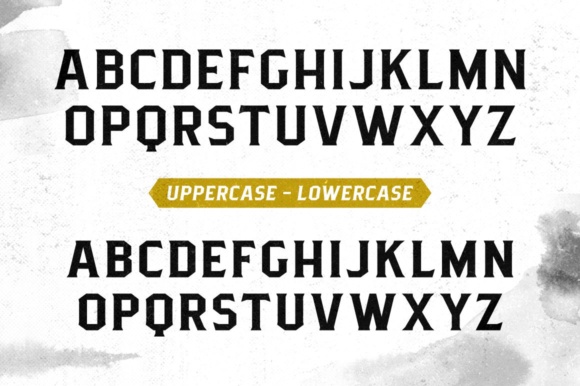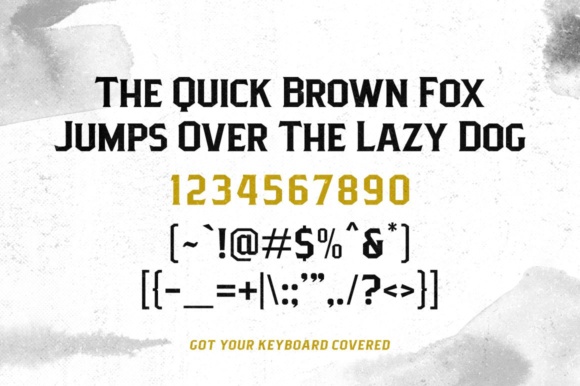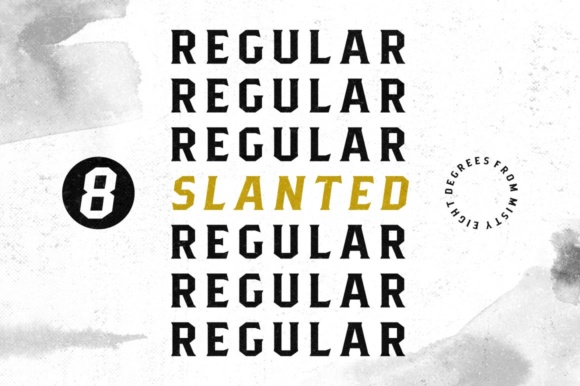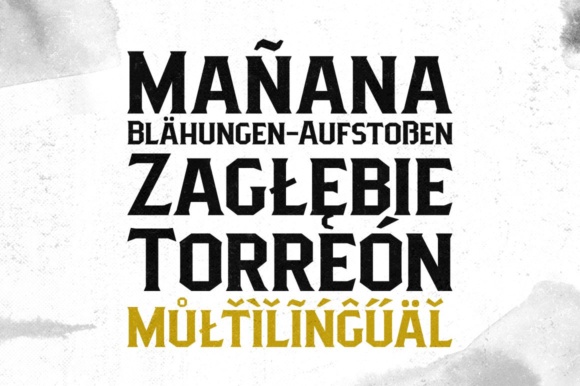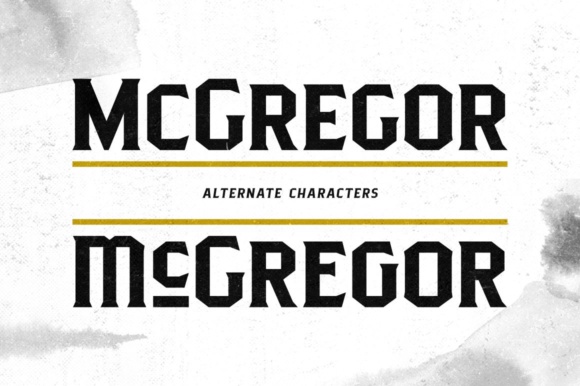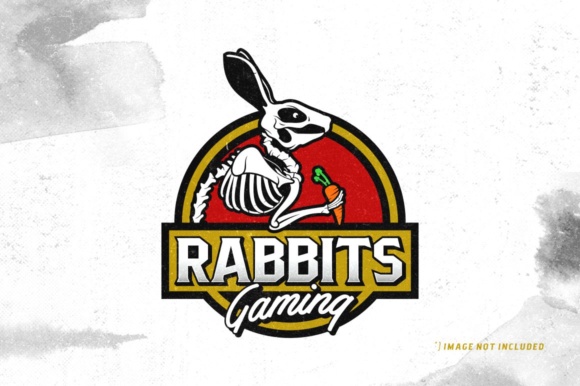
Introduction to Pittsbrook Font
Have you ever stumbled upon an old advertisement in a dusty archive, and suddenly, the faded letters jump out at you, transporting you to a bygone era? For designers, moments like these can spark creativity and inspire new ideas. The Pittsbrook Font is one such discovery, born from the nostalgia of vintage advertisements. Its rugged, blocky design is a testament to the power of simplicity and the importance of typography in design.
The Pittsbrook Font is a treasure trove for designers, offering a unique blend of classic and modern elements. Its high-quality design, with a transparent background, makes it an excellent choice for creative projects that demand a touch of vintage charm. Whether you’re working on a free download project or a commercial design, this versatile font is sure to elevate your design resource.
With the Pittsbrook Font, designers can tap into a rich history of typography, infusing their work with a sense of tradition and timelessness. Its value lies not only in its aesthetic appeal but also in its ability to evoke emotions and tell stories. As a valuable design tool, the Pittsbrook Font is an essential addition to any designer’s toolkit, waiting to be unleashed on your next creative project.
Key Features of Pittsbrook Font
- Pittsbrook Font is a high-quality design resource perfect for creative projects, offering a unique and stylish aesthetic.
- Its unique characteristics, such as the subtle texture and elegant lines, make it an excellent choice for designers looking to add a touch of sophistication to their work.
Honest Review: Pittsbrook Font
I recently stumbled upon the Pittsbrook Font and I must say it’s been a great addition to my design resource library. As a designer, I’m always on the lookout for high-quality fonts to enhance my creative projects. The Pittsbrook Font delivers on this front, offering a clean and modern aesthetic that’s perfect for various design applications.
What works well with the Pittsbrook Font is its versatility. It comes in a range of weights and styles, making it easy to incorporate into different design elements. I particularly appreciate the transparent background option, which allows for seamless integration with other design elements. ✨
- Wide range of weights and styles
One limitation I’ve noticed is that the Pittsbrook Font may not be suitable for very small text sizes. At these sizes, the font can appear a bit blurry. ⚠️
Overall, I’m impressed with the Pittsbrook Font and would recommend it to fellow designers. It’s a great addition to any design resource library and can add a touch of sophistication to creative projects. With its high-quality design and versatile options, it’s definitely worth checking out.
Pittsbrook Font
Common Use Cases for Pittsbrook Font
The Pittsbrook Font is ideal for a variety of creative projects, including: graphic design, digital art, typography, and more. This font is perfect for anyone looking to add a unique touch to their designs.